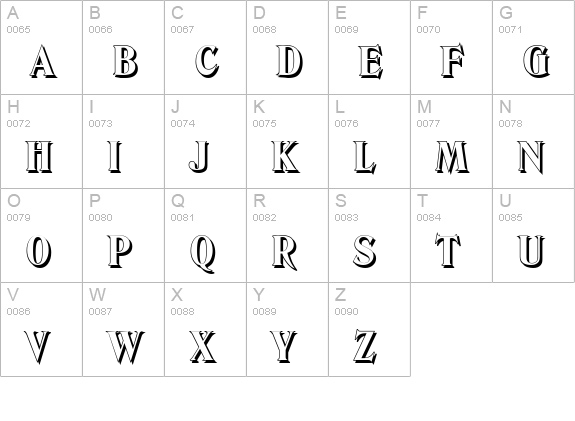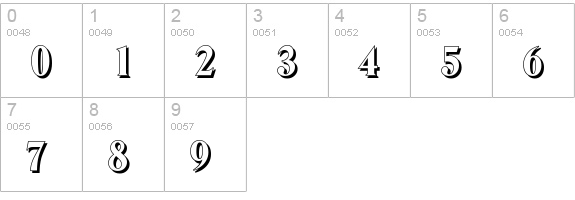
DenverShadow-Xbold-Regular is the standard, neutral variant in the DenverShadow typeface family \xE2\x80\x94 well suited to general body text, paragraphs, and standard typographic work.
DenverShadow-Xbold-Regular is a bold and impactful font designed to make a statement in your designs. With its sharp edges and strong presence, this font exudes confidence and authority. It is perfect for headlines, titles, and any design that requires a bold touch. The best part is that DenverShadow-Xbold-Regular is completely free to download at FontsMarket.com. You can easily access this striking font and add it to your collection without any cost. Don't miss out on the opportunity to enhance your designs with the bold and dynamic DenverShadow-Xbold-Regular font.